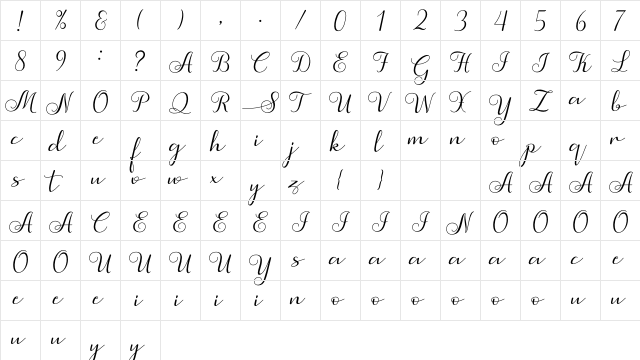
Simphony Regular
| Foundry | Graphix Line Studio |
| Designer | Aldi Raya Pradipta |
Design Context for Simphony Typeface
Simphony is a composed and adaptable typeface that performs quietly and consistently across a wide range of design contexts.